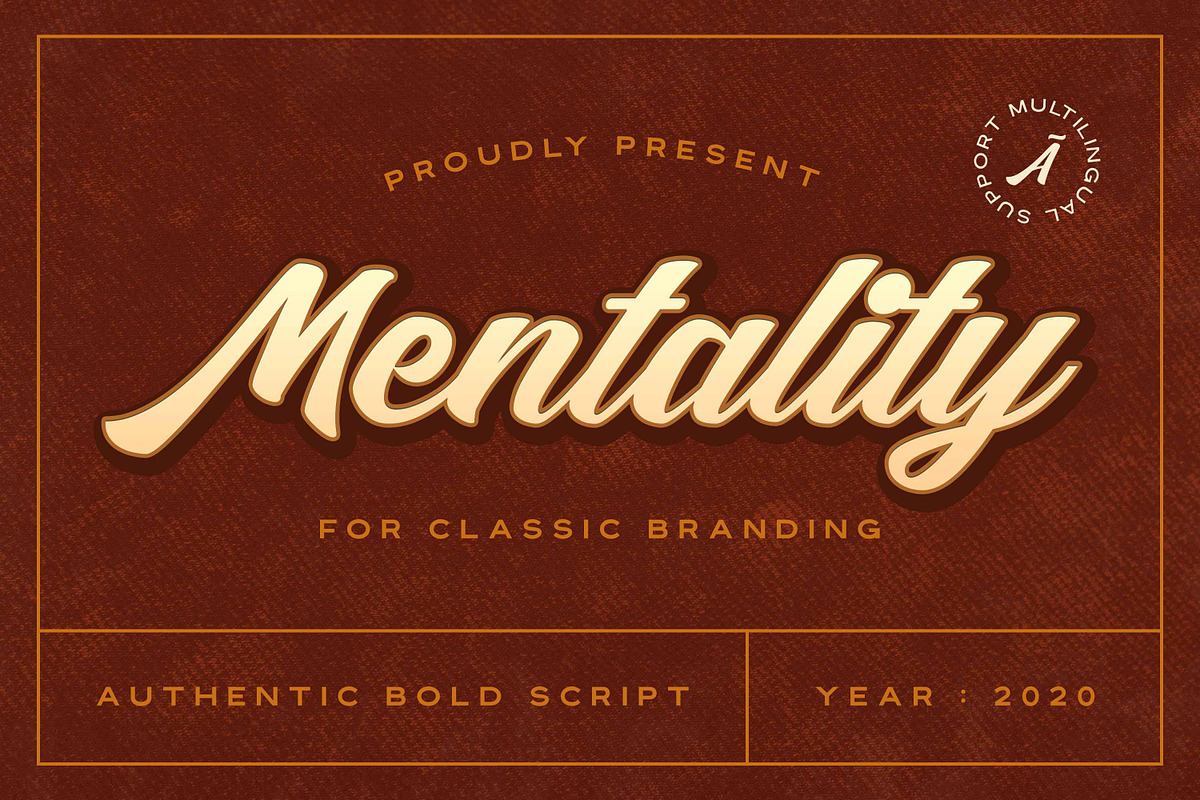
Mentality - Authentic Bold Script Font Free Download is a powerful and expressive script typeface designed to make a bold statement. With its hand-crafted strokes and strong character, this font is perfect for logos, branding, posters, social media graphics, and any design project that needs a personal, authentic touch. The bold, flowing design adds a sense of energy and individuality to your typography.
Whether you're designing for a creative brand, crafting an event invitation, or making a standout logo, Mentality offers a unique and impactful style that resonates with confidence.